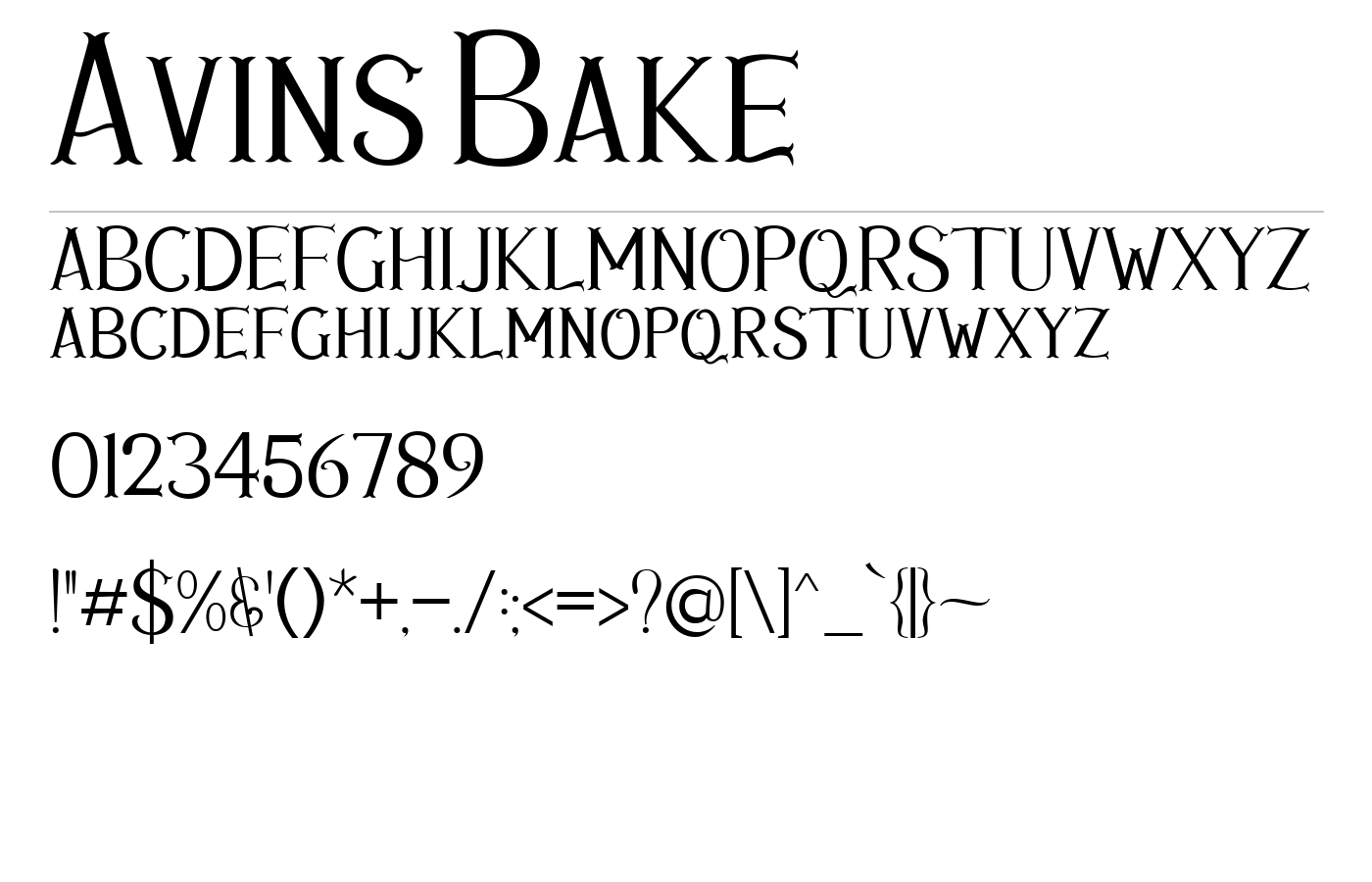
Avins Bake is a distinctive serif font with a slightly condensed shape and elegant strokes that combine thin and moderate contrast, giving it a refined yet playful character. Its unique, sharp serif details and stylized letterforms evoke a vintage, handcrafted feel, making it ideal for branding, editorial headlines, and creative packaging where a touch of sophistication and personality is desired. This font works well to attract attention while maintaining readability in decorative, artistic designs.
Avins Bake Font